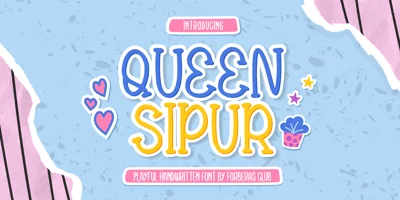
Queen Sipur Font
The Queen Sipur Font excels in various design applications including royal luxury branding, elegant jewelry marketing, premium cosmetics packaging, sophisticated fashion communications, palace hotel signage, aristocratic event invitations, crown jeweler identities, luxury spa branding, regal entertainment promotions, and distinguished high-end projects that demand imperial sophistication and queenly magnificence.
What makes the Queen Sipur Font exciting is its embodiment of royal authority and feminine grace through letterforms that capture the essence of queenly elegance and imperial sophistication. This typeface demonstrates exceptional refinement through carefully crafted characters that suggest the dignified posture and commanding presence of royal heritage while maintaining the graceful beauty associated with feminine leadership. The font's regal personality makes it perfect for luxury brands and prestigious institutions seeking to communicate supreme quality, exclusive elegance, and the commanding authority of royal patronage through typography that literally crowns content with imperial distinction.
The Queen Sipur Font family typically includes majestic weight variations that enhance the royal aesthetic, featuring elegant italic styles with crown-inspired flourishes and imperial decorative elements. These family options often include ornamental capitals, royal symbols, and aristocratic ligatures that provide designers with comprehensive tools for creating authentically regal typography that honors the tradition of royal elegance and feminine power throughout history.
Luxury brand creators and prestigious institutions consistently select Queen Sipur Font for projects requiring typography that establishes supreme elegance and royal authority. This typeface delivers exceptional performance in luxury marketing, high-end fashion branding, and exclusive communications where conveying ultimate sophistication and commanding respect is essential for elite market positioning. The font's queenly character makes it particularly effective for feminine luxury brands and royal commemorative applications. Download Queen Sipur Font today to access this magnificent typeface that transforms communications with its royal elegance and imperial sophistication, creating compelling luxury experiences that demonstrate the highest standards of refinement and the commanding presence of true queenly magnificence.